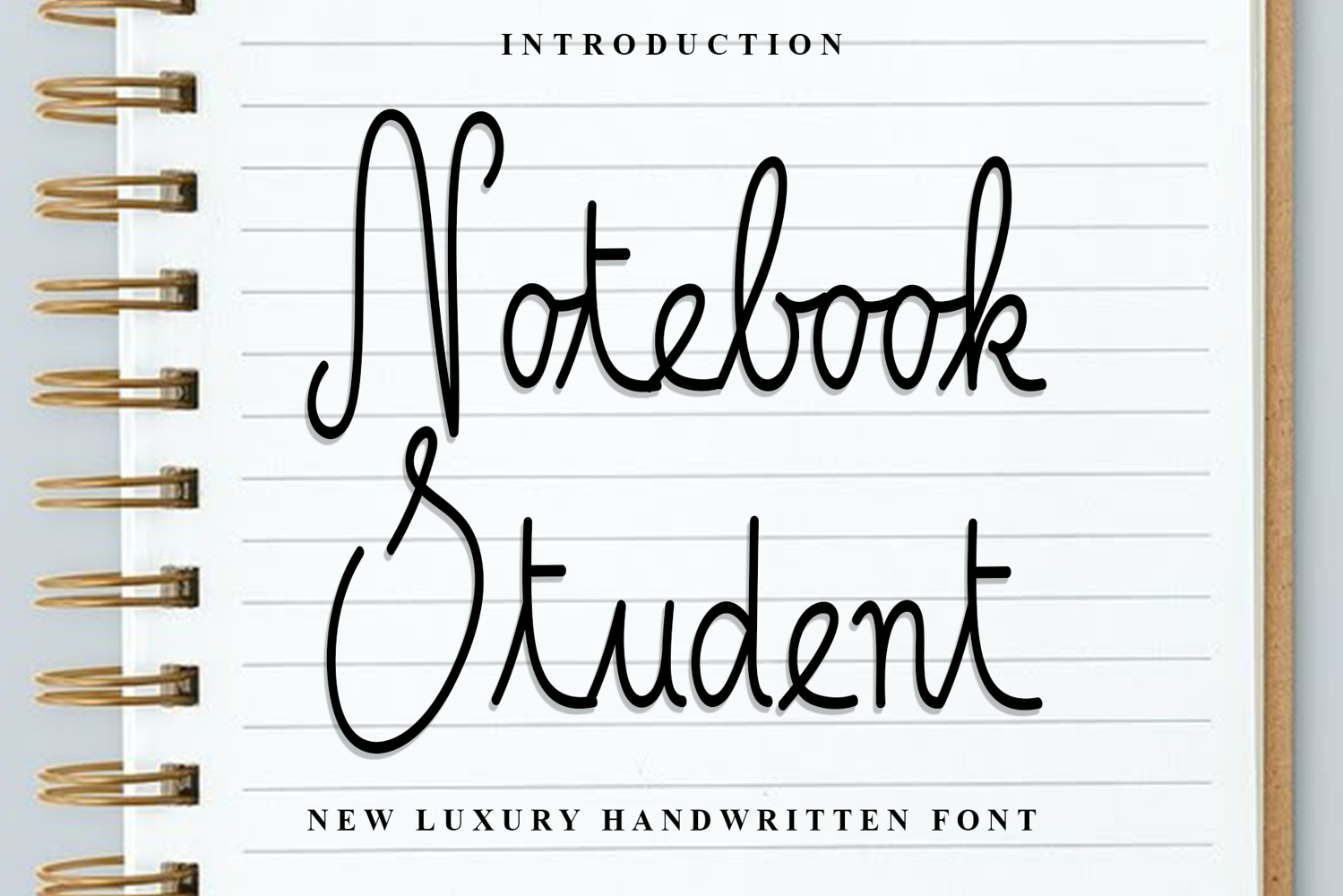
Notebook Student
Notebook Student is a beautiful and eye-catching font designed with a soft, unique touch. Its distinctive strokes give it a special character, making it meaningful and versatile for future use. With various characters, it’s perfect for design projects, crafts, and other creative works.